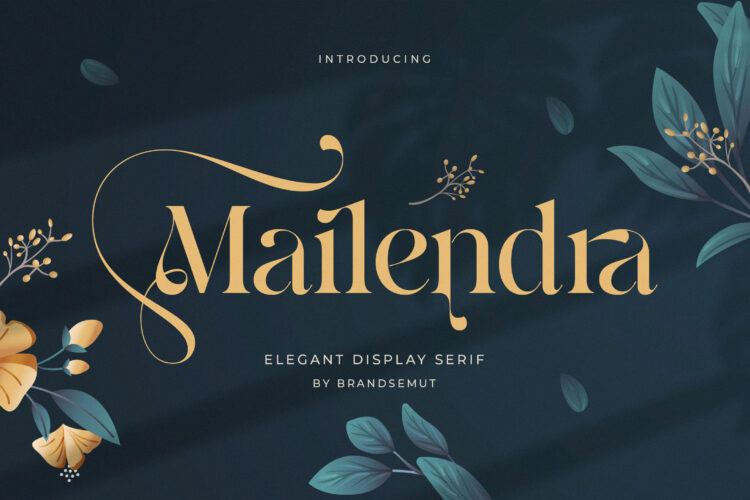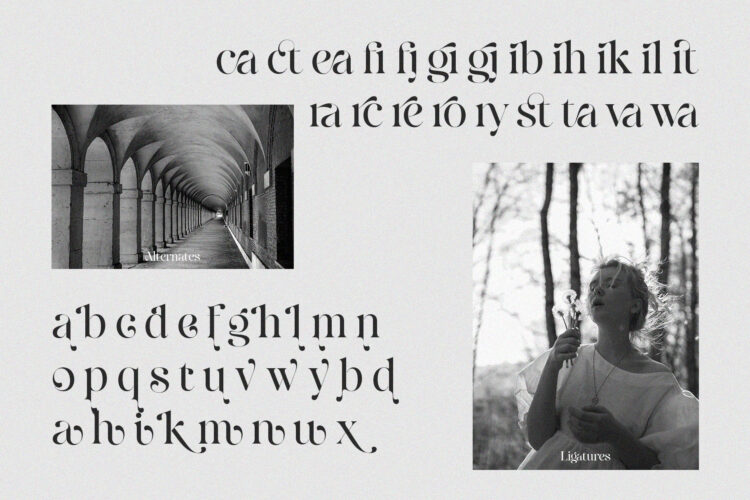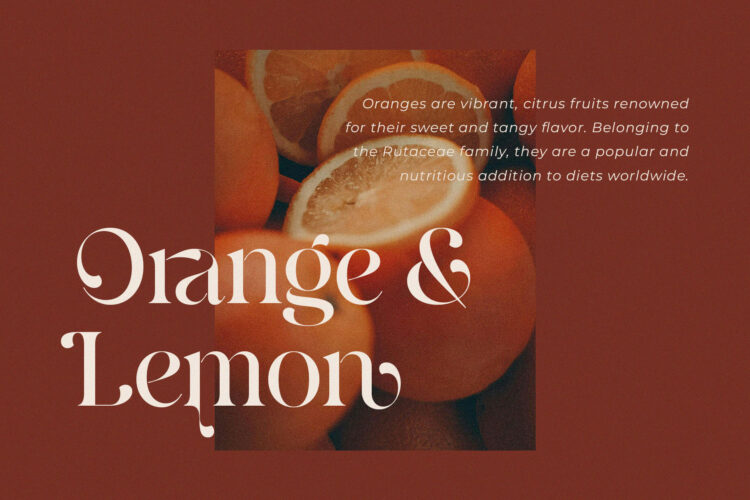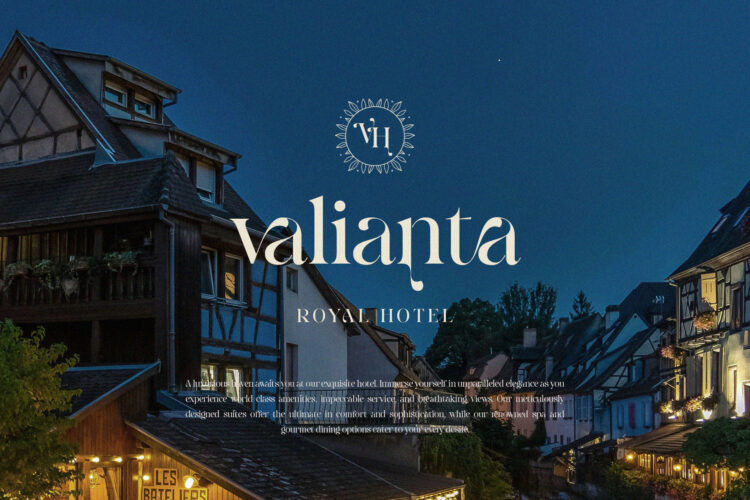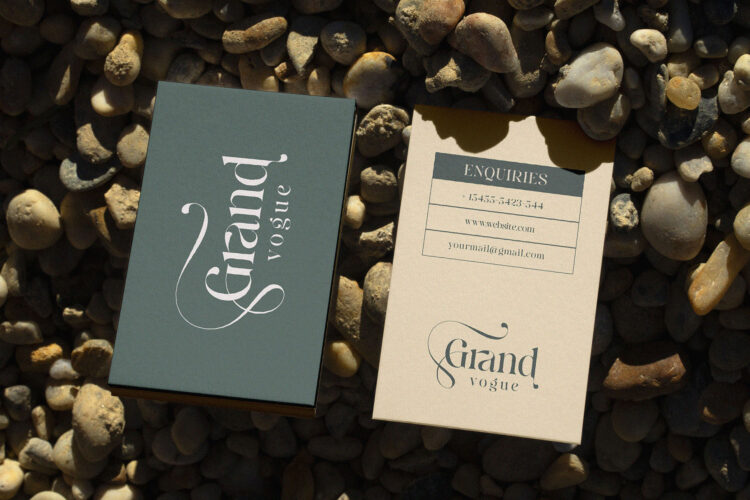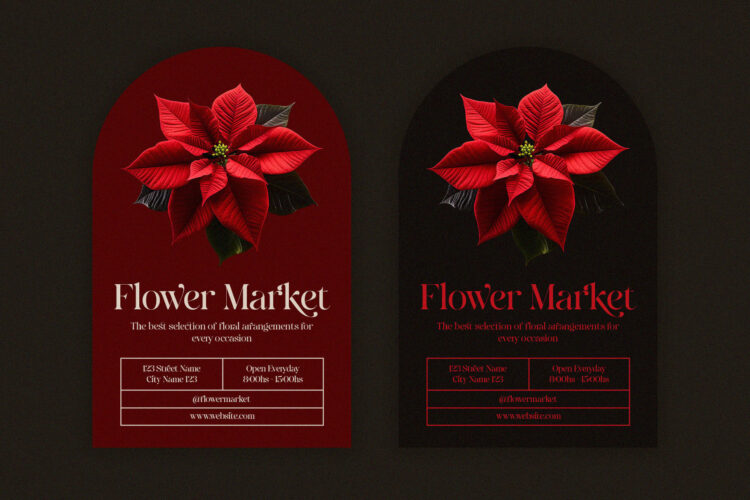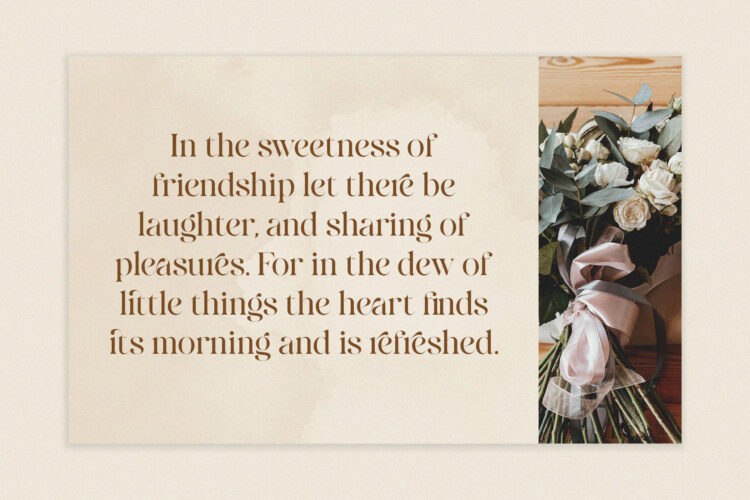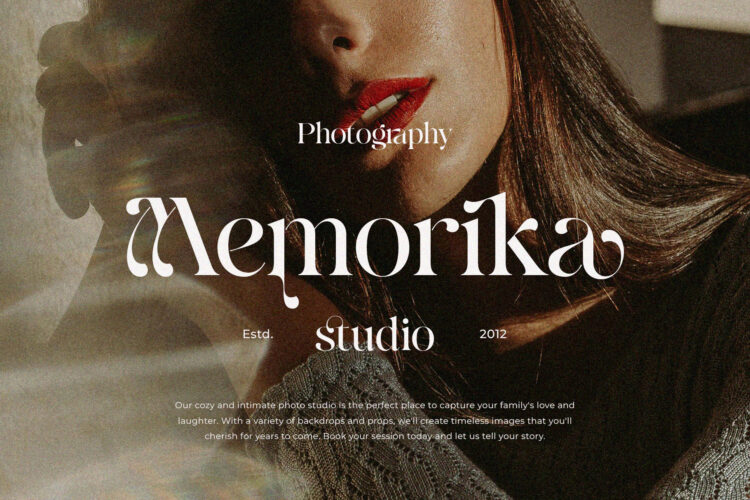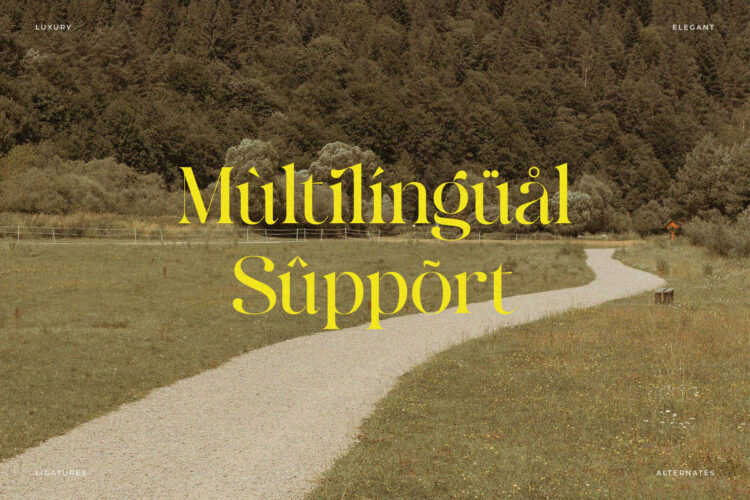
Introducing Mailendra Elegant Display Serif.
Mailendra is a clean, elegant and classy display serif, best used as a display for headings, logos, branding, magazines, product packaging and invitations. Mailendra equipped with Ligature and many Alternates and come with clean lines and smooth curves give any project an extra touch of class.
Mailendra – Elegant Display Serif